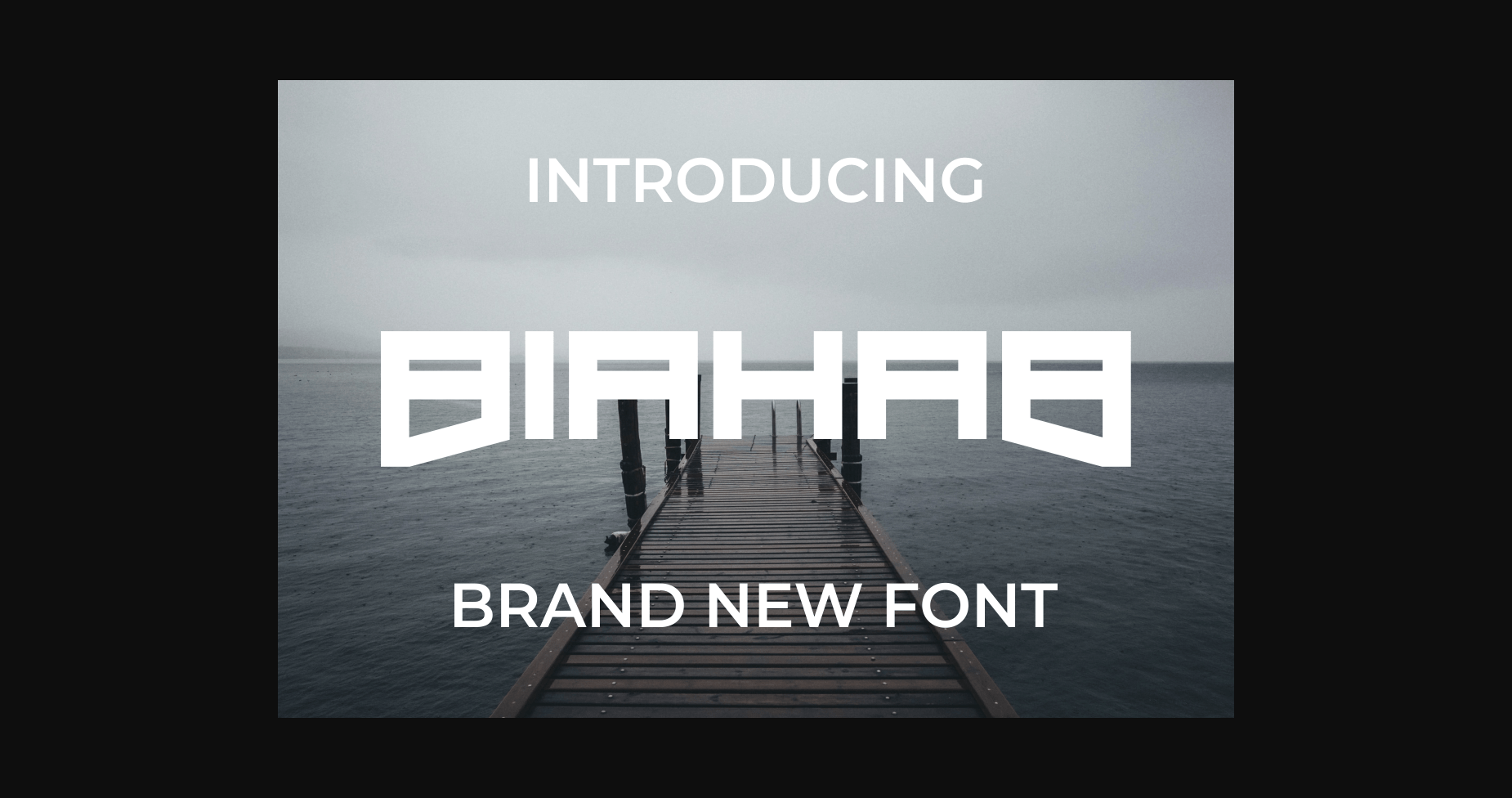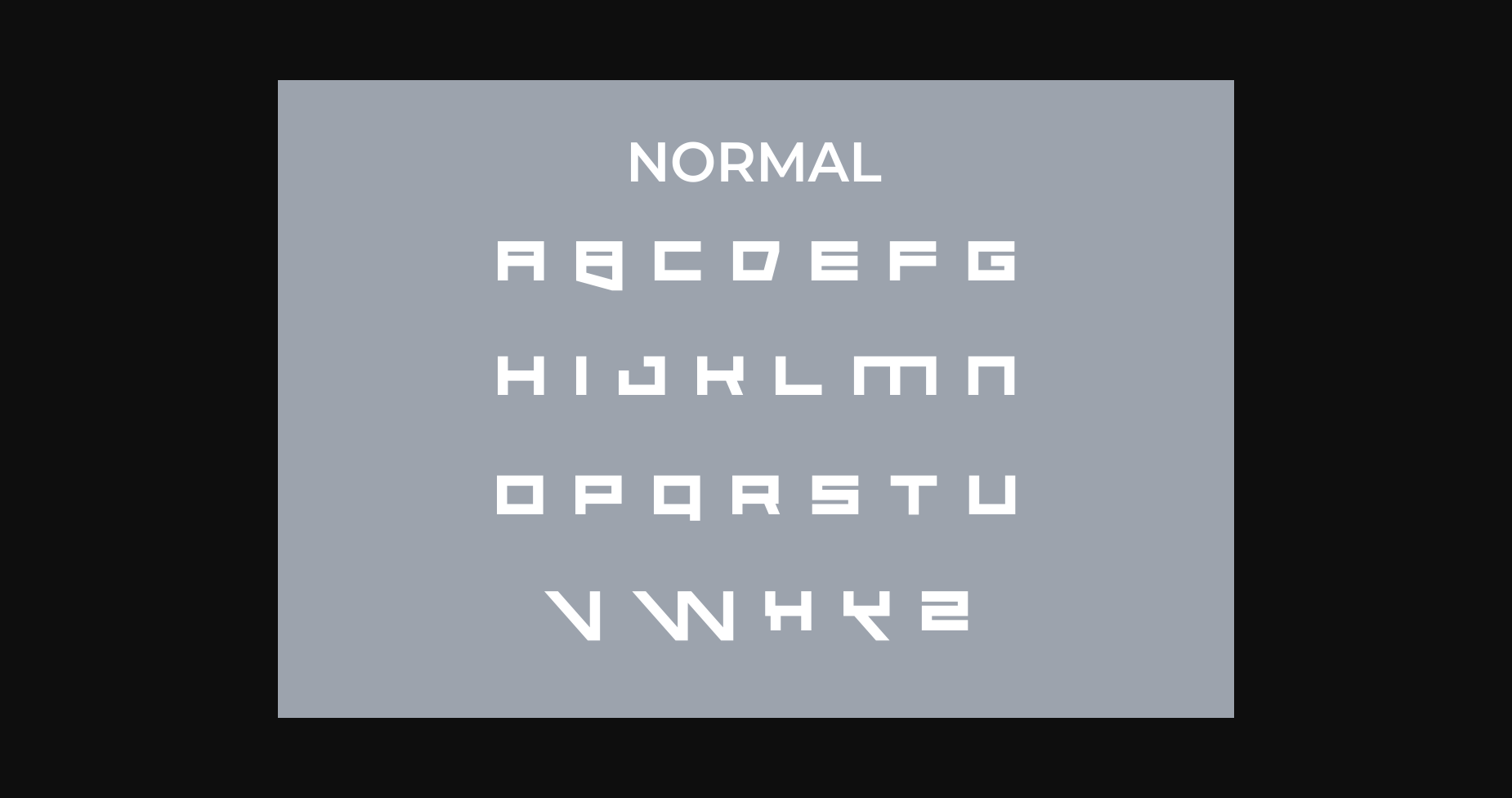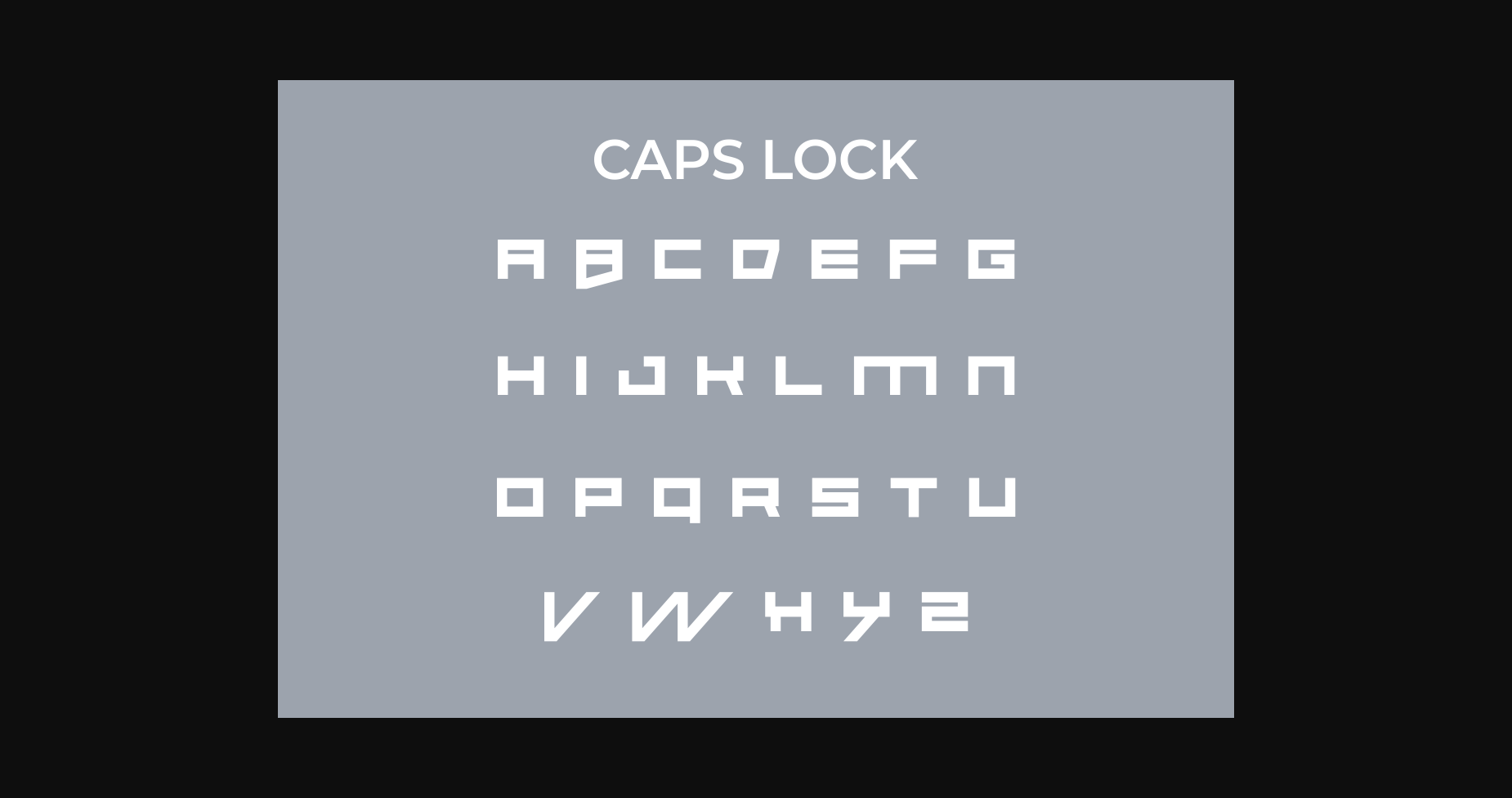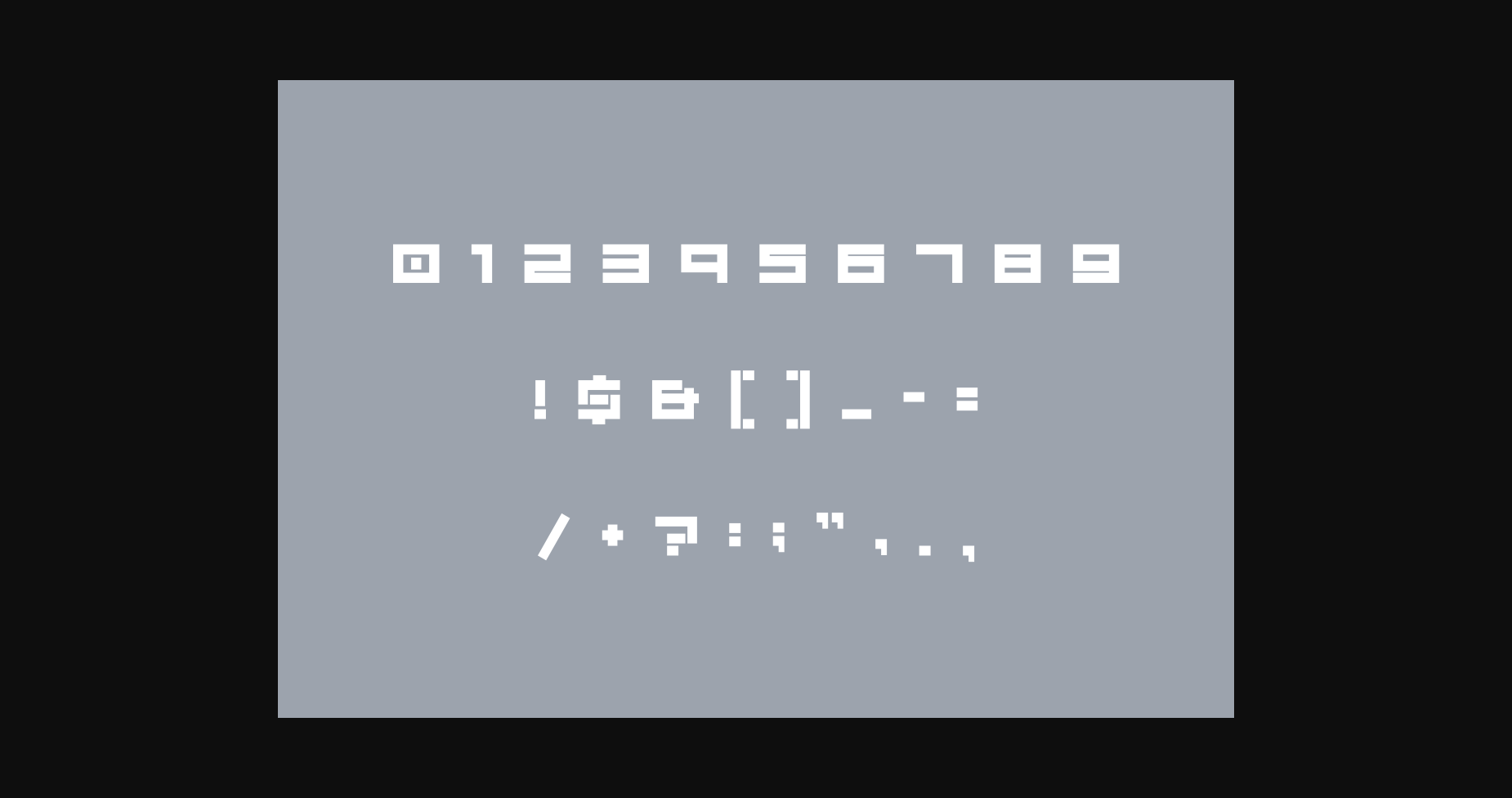
Biahab Font
About Biahab Font
Biahab is a modern bold and authentic display font. The font is suitable for any branding project like logo, t-shirt printing, e-sport, and many more. Outstanding in a wide range of contexts.